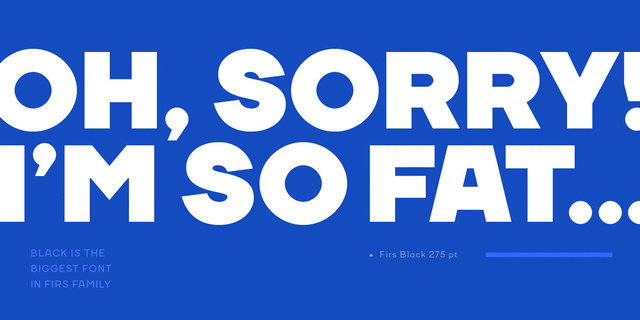
About TT FirsFirs – universal sans-serif font family, designed in a modern Scandinavian style. Firs has a Nordic character and is a versatile tool in design.
This font family has an extension of weights coverage: Hairline, Thin, ExtraLight, Light, Regular, Medium, Bold, ExtraBold, Black and Italics. Large variation set allows to solve the most ambitious tasks.
Firs is very calm and neutral. Perfect for all your needs and goals. Great for the modern media environment: mobile applications and websites. Typeface was designed by Ivan Gladkikh in 2015.
Features of font family TT FirsThe hit of the decade:
Associations for font family TT FirsTypeface personality and character:
broken, angular, minimalistic, accurate, flat, rectangular, static, logical, laconic, artificial, cold, urban, cutting, crisp, clean, modern, sharp, thin, wire, glass, easy, chilly, clear, weightless, transparent, fragile, fashionable, automatic, engineering, schematic, elementary, stable, chopped, technical, simple, neutral, urbanistic, strict, pragmatic, practical, solid, available, serious, reliable, self-assured, machine, strong, independent, convincing, industrial, technogenic, military, army, mandatory, workman, architectural, iron, steel, robust, authoritative, important, motivating, tough, railway, reputable, rigid, responsible, rude, ambitious, manly, durable, severe, good quality, soldierly, brutal, lasting, powerful, significant, fat, square, formidable, splashy, notable, heavy, dense, close-fitting, monumental, bright, active, loud, daring, proletarian, icy, game, cocky
Eau de Toilette, fashion, scheme, design, lotion, device, engineer, city, science, architecture, chemistry, mathematics, urban studies, code, constructor, automation, coworking, equipment, robot, furniture, tool, stock, depot, industry, machine tool, packing, army, factory, architect, port, fitness equipment, repairs, steel-maker, news, engine, power station, energy industry, weapons, mechanical engineering, press, helmet, uniform, railway carriage, airsoft, construction, building, steam locomotive, safe, security, protection, war, mine, metallurgy, building materials, box, ammunition, miner, footwear, railway, policy, workman, Lockdown, selfie, excavator, flag, meeting, tank, blockbuster, thriller, game, action, brick, truck, Freight, trucker, motor, cubes, lego, logistics Typeface associated with age: